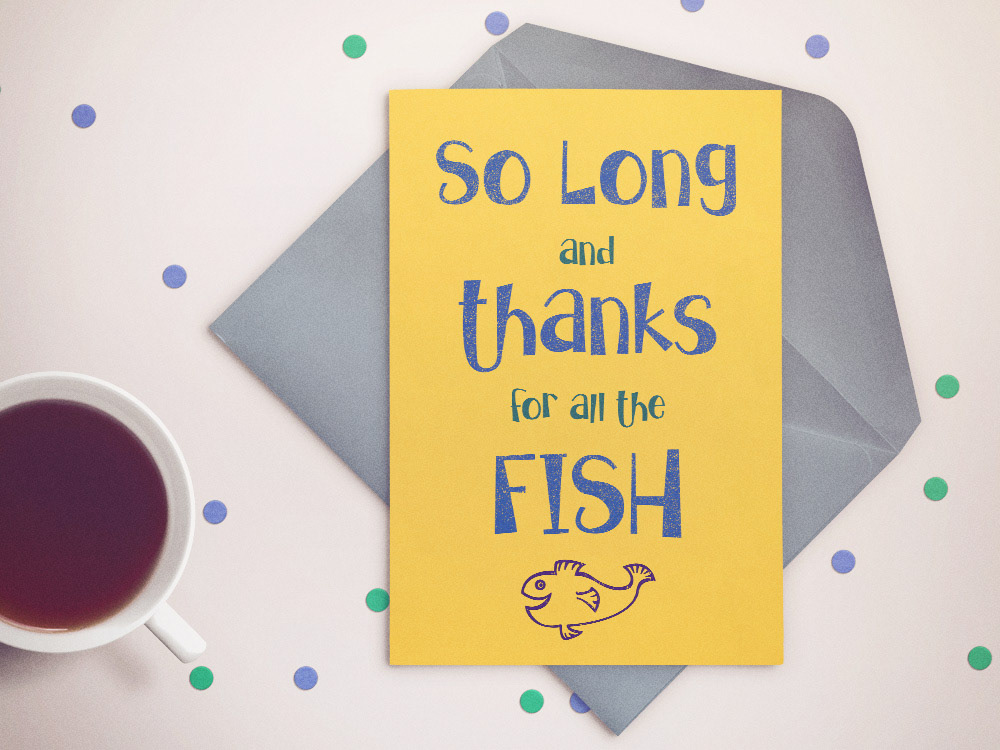
There are a lot of great parts about creating a typeface, but one of the best parts? Finding the name. The first eight I came up with are already being used, but that’s okay, because #9 is perfect.
In my ongoing efforts to teach myself the art of fontmaking, I’ve created this bunch of weirdness directly in Type 3.2, using only its pen tool (all of my other recent fonts have been imported from Illustrator or Photoshop).
I did double-letter ligatures for 15 letters, both in lowercase and caps. (Most of them are the same character, just offset, instead of creating a second version of that letter. What can I say, I like to turn these freebies around in a day or two!)